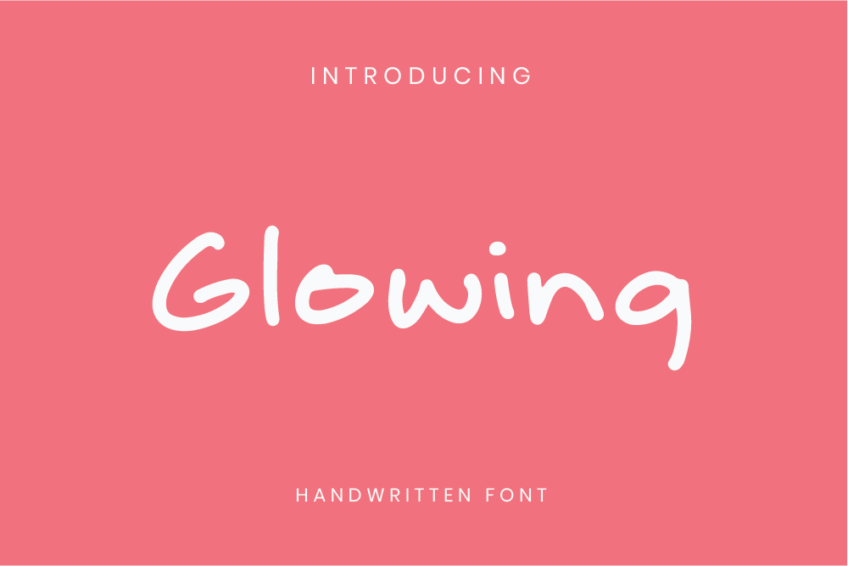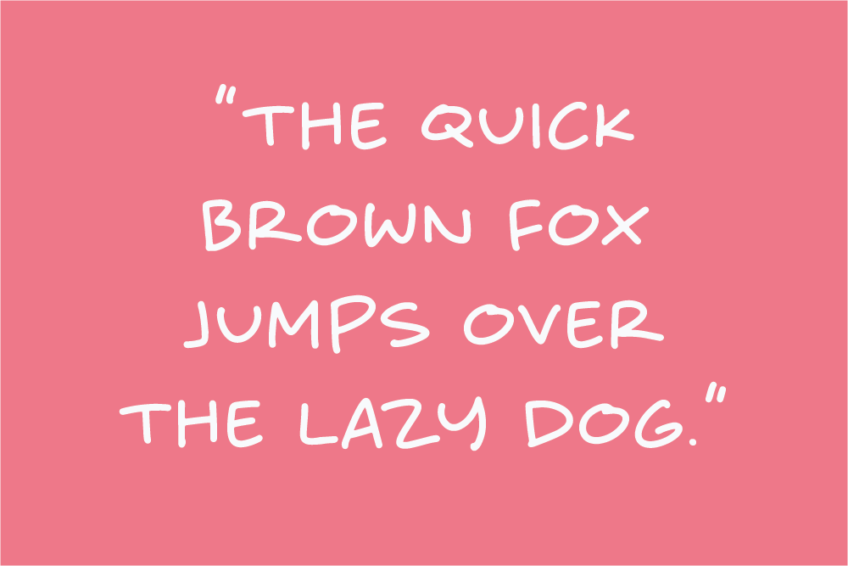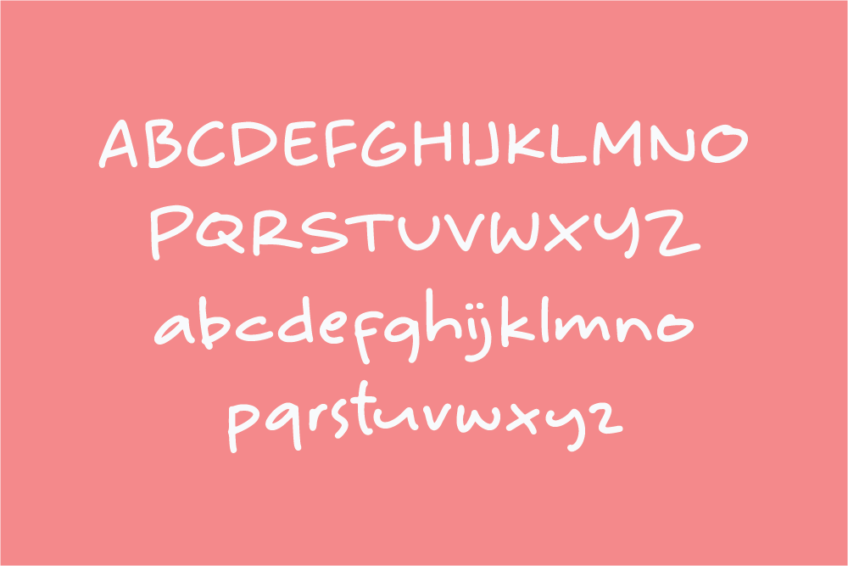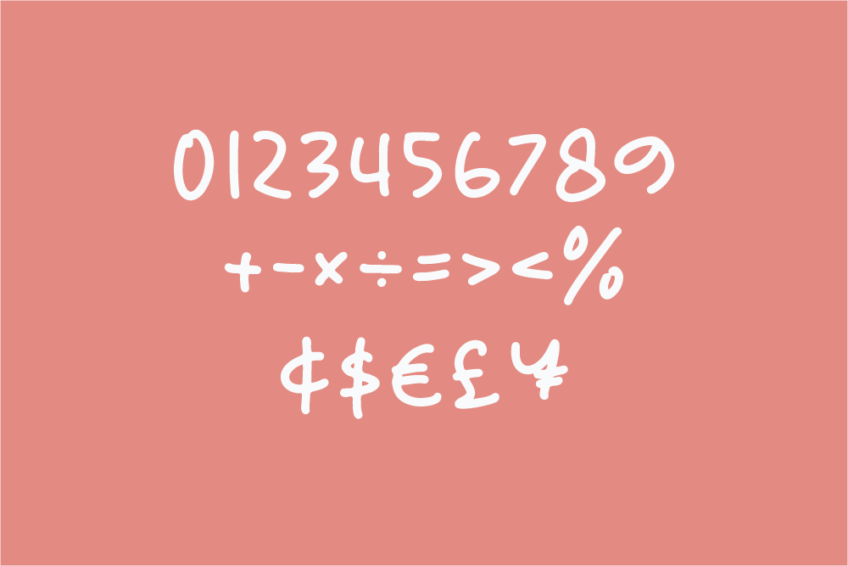
Image Preview of Glowing Handwritten Font - A Handwriting Fonts for Cards
Glowing HF
Elevate the art of card design with Glowing Handwritten Fonts for cards. This enchanting typeface is meticulously crafted to add a touch of dreaminess and sophistication to your cards. Whether you’re creating greeting cards, invitations, or special occasion cards, Glowing fluid strokes and delicate details bring a sense of elegance to your words.
Infuse your designs with the whimsical charm of this fonts for cards – Glowing Handwritten Font and turn every card into a canvas for your dreams.
Glowing Handwritten Font